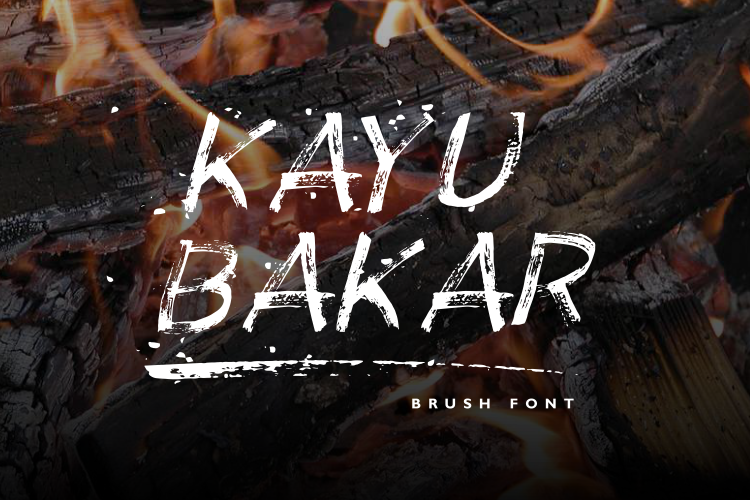
KAYU BAKAR Brush Font
kAYU BAKAR ITALIC
KayuBakar REGULAR
KayuBakar-Swashes
KAYU BAKAR is a brush font bursting power. With extra attention to quick strokes and sharp details, KAYU BAKAR is guaranteed to deliver an unapologetically loud & fast-paced message; ideal for logos, apparel, quotes, product packaging, or anything which needs a typographic turbo-boost.Your download will include 3 font files;
• KAYU BAKAR ~ A hand-made, all-capitals brush font which has a complete set of alternate A-Z characters. Simply switch between upper & lower case to access the alternates. (Tip: Try mixing up both upper and lowercase characters in a word to achieve the best text layout).
• KAYU BAKAR Italic ~ A slanted version of the regular font, creating faster movement in the characters.
• KAYU BAKAR Swashes ~ A bonus set of A-Z swashes. Simply select this font and type any A-Z character to create one of the bonus elements.